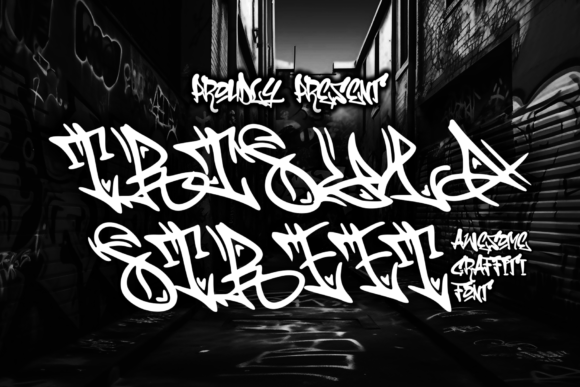
Dive into the world of urban artistry with “Trisula Street,� the font that captures the raw energy of graffiti culture. Inspired by the vibrant streets of metropolitan jungles, this display font exudes an edgy and bold character, perfect for making a statement in your designs.
With its balanced and flowing lines, “Trisula Street� maintains a sense of harmony amidst its intricate patterns. This unique font adds an artistic flair to a wide range of projects, from edgy streetwear designs to eye-catching car decals. Its versatility extends to product packaging, posters, and even social media graphics, making it a must-have for designers seeking an urban edge.